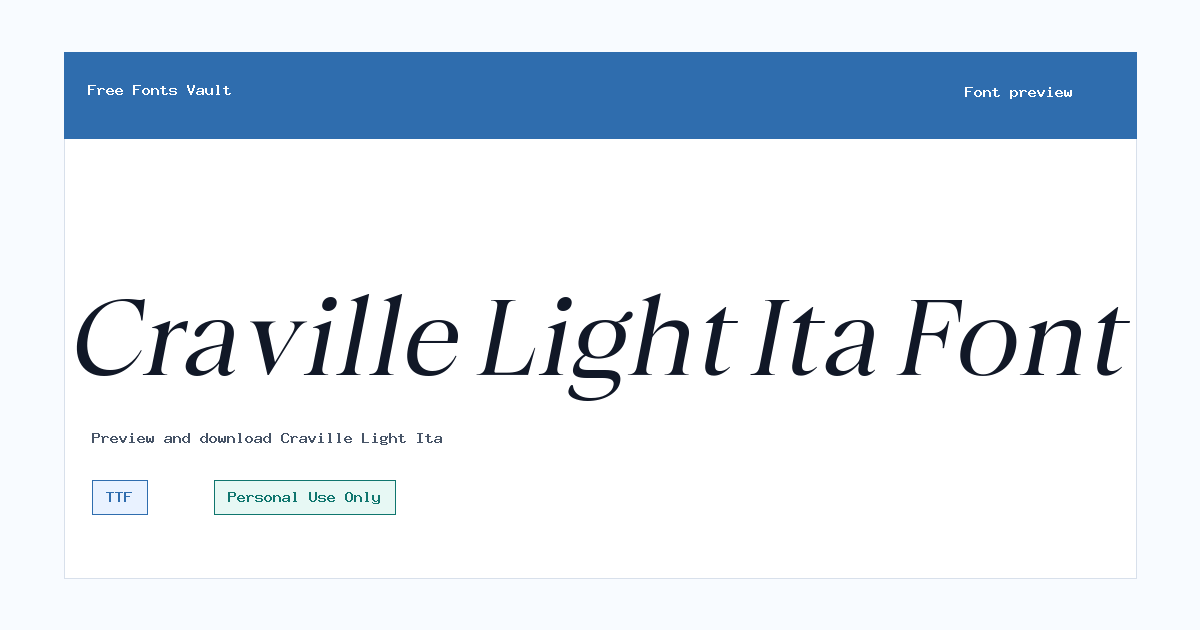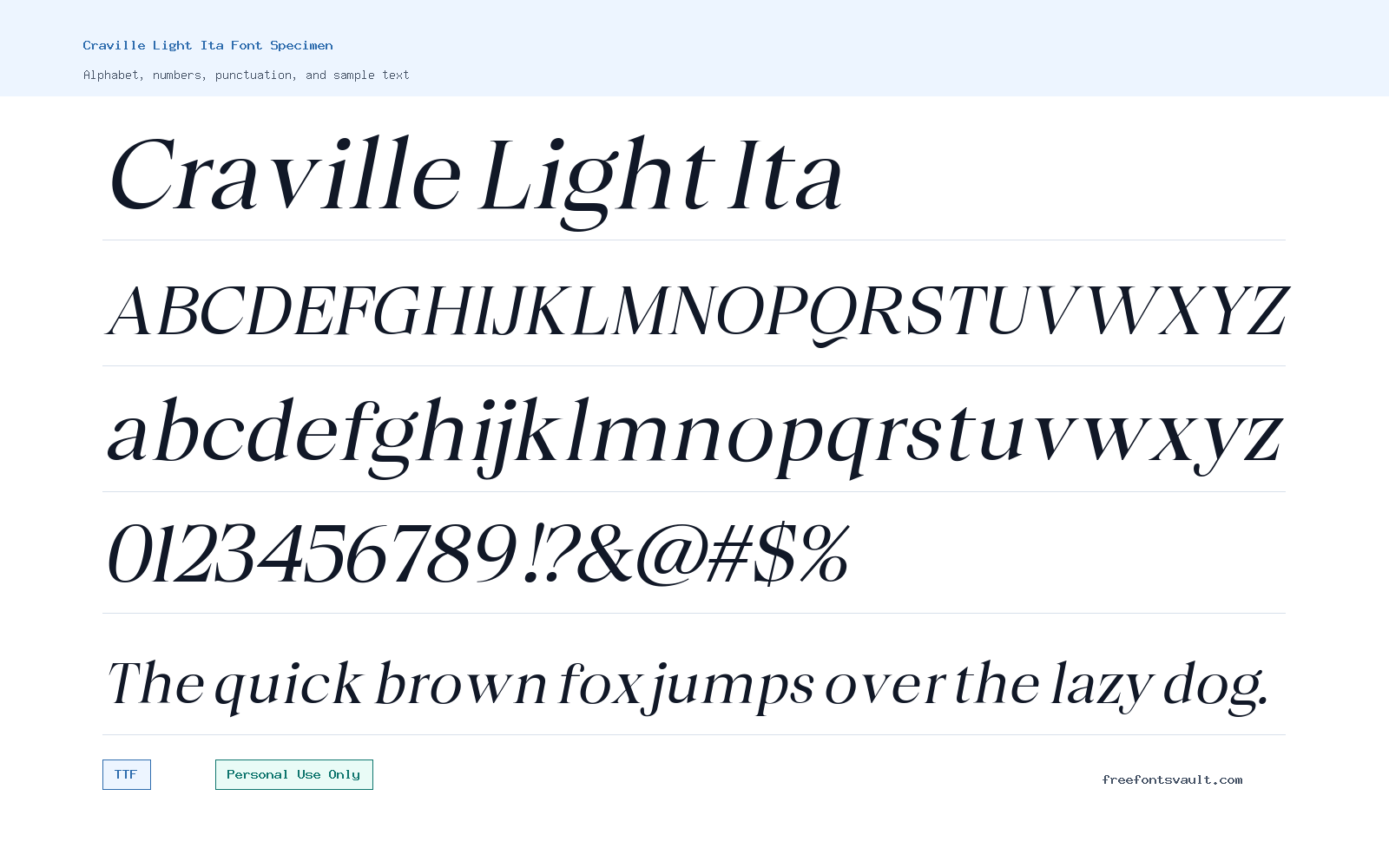
Craville Light Ita
- Designer Glyphminds Studio (Graphicted.Co)
Craville Light Ita is a light italic serif font with a refined, slanted look suited to elegant display text, invitations, titles, and stylish design mockups.
About Craville Light Ita
Craville Light Ita is part of the Craville Serif Font Family and comes as a TrueType font file. The style is light in weight and italic in posture, so it gives text a soft, angled rhythm rather than a heavy headline feel. That makes it useful when you want a graceful accent font for short lines, names, labels, quotes, or decorative headings. Because the weight is 300, it may feel delicate at small sizes, especially on low-resolution screens or busy backgrounds.
Use Craville Light Ita where the italic shape can add personality without needing loud effects. It can work well in logo drafts, boutique branding concepts, fashion-style layouts, editorial covers, wedding stationery, poster text, social media graphics, and web mockups. For longer reading, test it carefully in the preview first. Thin italic serif fonts often look best in larger sizes, with generous spacing and strong contrast against the background. If you are designing a logo or brand mark, try the font in both uppercase and title case, then check how the letters connect visually before committing to the final direction.
For posters and display graphics, Craville Light Ita is best used with restraint. A short phrase, a product name, or a single highlighted word will usually show the font better than a dense paragraph. Pair it with a plain sans serif for supporting text if you want a clean contrast, or with a sturdier serif if the project needs a more traditional editorial tone. Avoid pairing it with another highly decorative italic font, since the result can feel crowded and harder to read.
- Light 300 weight with an italic serif style for refined display text
- Works best for short headings, names, quotes, labels, and decorative accents
- Delicate letter weight that benefits from larger sizes and clean backgrounds
- Useful for personal-use mockups, print concepts, logo drafts, and editorial-style layouts
- Personal logo concepts and boutique brand mockups
- Wedding invitations, name cards, and elegant stationery
- Poster titles, cover text, and short editorial headlines
- Fashion, beauty, lifestyle, and luxury-inspired social graphics
- Website hero mockups, pull quotes, and decorative section headings
- Typography previews where a light italic serif accent is needed
What kind of font is Craville Light Ita?
It is a light italic serif font. The file information shows a 300 weight, italic style, and TTF format.
Is Craville Light Ita good for body text?
It is better for short display text than long paragraphs. The light italic style may become harder to read at small sizes, so use it for accents, headings, or names.
What should I pair with Craville Light Ita?
Try a simple sans serif for clean contrast or a stronger upright serif for editorial layouts. Avoid pairing it with another ornate italic font, because the design can become too busy.